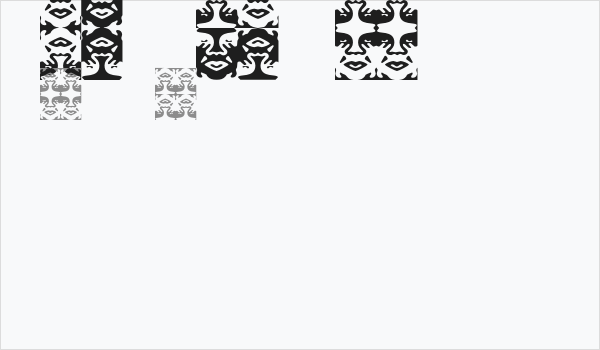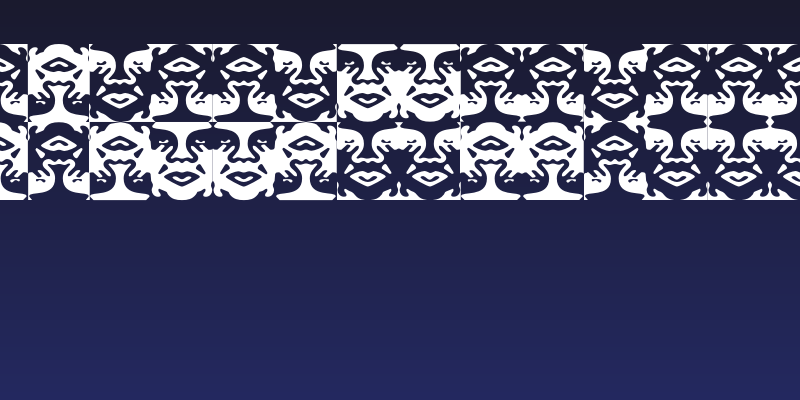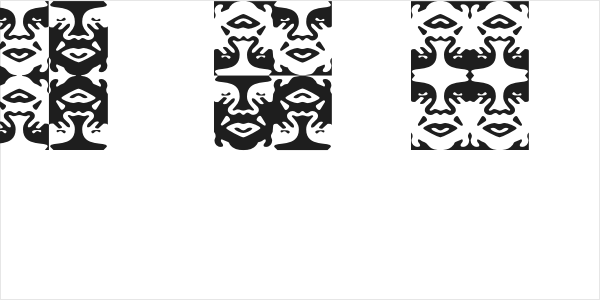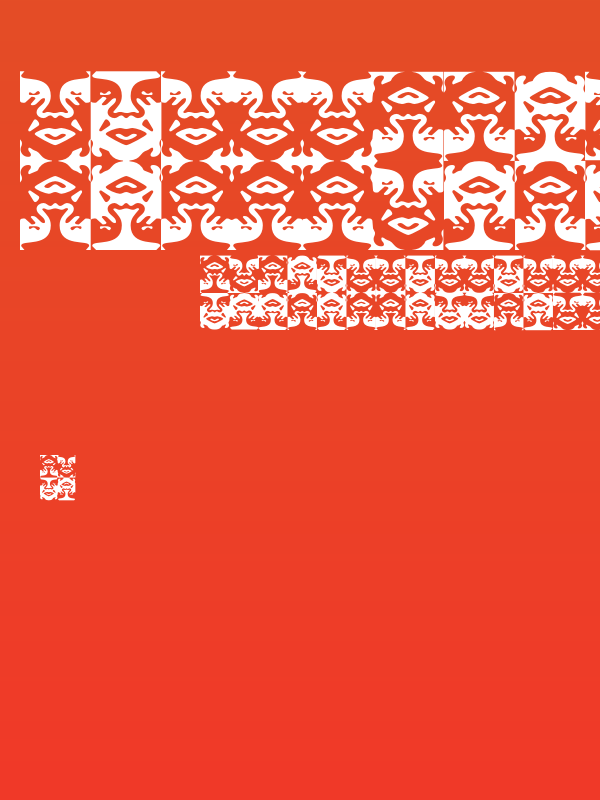
ObeysTileCaps Font
ObeysTileCaps Description
This font is a highly decorative and artistic typeface, featuring intricate patterns and designs within each character. The letters are filled with detailed motifs, creating a visually striking and unique appearance. The complexity of the design makes it stand out, with each character resembling a piece of art. This style is not suited for body text due to its ornate nature but is perfect for making a bold statement in headlines or logos. The font's intricate details require careful consideration of its use to ensure readability and impact.
| Proposed Projects | Ideal for use in artistic projects, branding, logos, posters, and any design work requiring a bold, decorative statement. |